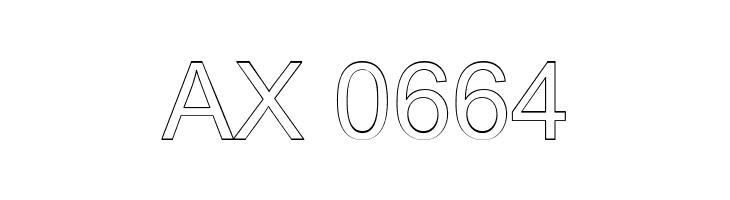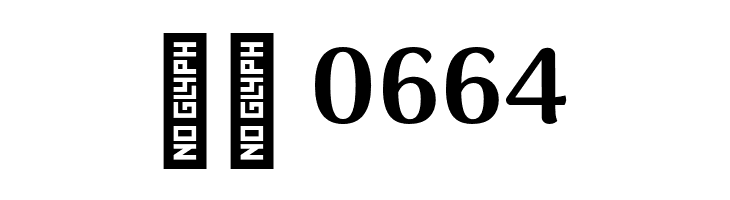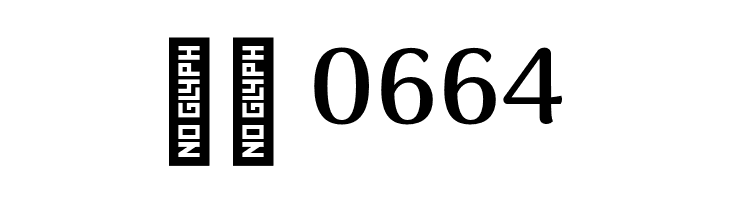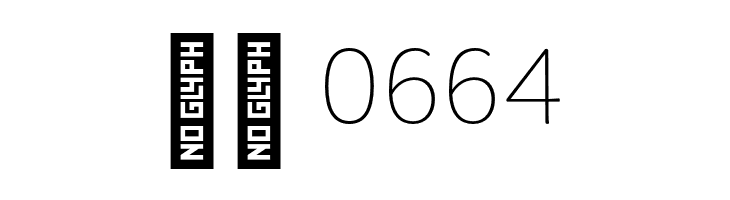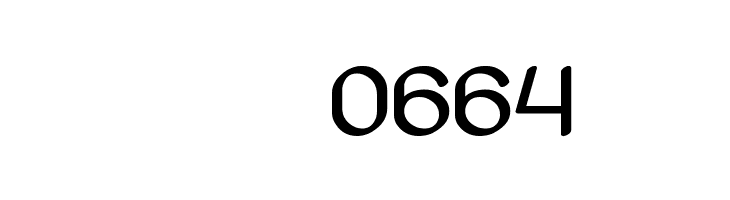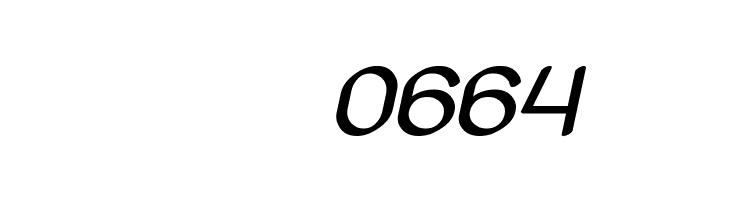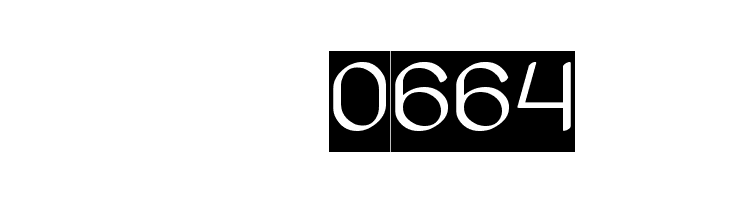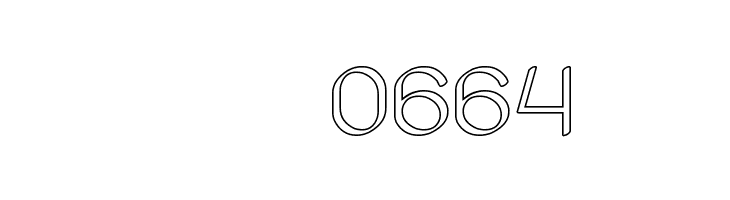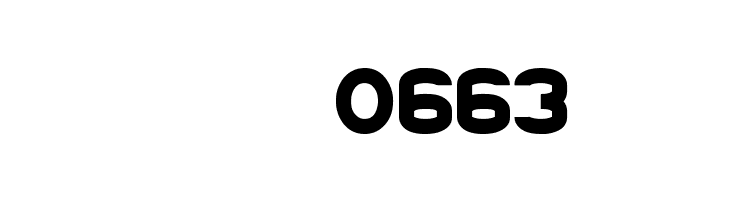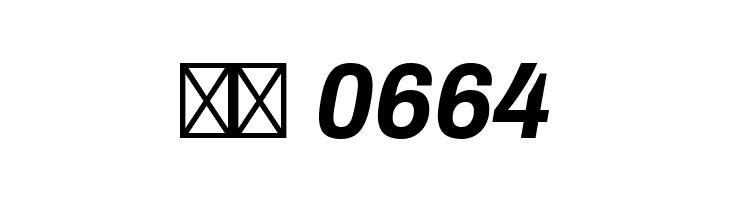
• ARCHITECTURE
A bold, geometric font with a modern, architectural style.
• Architypogra
A bold, three-dimensional font with architectural and geometric influences.
• ArchitypograPsychodeliqu
A bold, 3D font with a playful, retro comic book style.
• Archive Bold
A bold, rounded font with a playful and structured appearance.
• Archive Bold Italic
A bold, italicized font with smooth curves and a dynamic slant.
• Archive Italic
A sleek and elegant italic font with smooth curves and a modern style.
• Archive-Hollow
A modern, hollow font with clean lines and rounded edges, offering a unique and airy appearance.
• Archive-Inverse
A modern, elegant font with flowing curves and sharp edges.
• Archivo Bold
A bold, modern typeface with strong, clear characters and consistent stroke width.
• Archivo Bold Italic
A modern, bold, and italicized typeface with a clean and dynamic style.
• Archivo Italic
A modern, italicized sans-serif font with clean lines and consistent stroke width.
• Archivo Medium
A modern, clean typeface with excellent readability and balanced proportions.
• Archivo Medium Italic
A modern, italic sans-serif font with medium weight and balanced proportions.
• Archivo Regular
A clean, modern typeface with balanced spacing and consistent stroke thickness.
• Archivo SemiBold
A modern, versatile typeface with clean lines and balanced proportions.
• Archivo SemiBold Italic
A modern, semi-bold, italic sans-serif font with clean lines and low contrast.
• Archivo VF Beta Italic
A modern, italic sans-serif font with clean lines and a professional appearance.
• Archivo VF Beta Regular
A modern, geometric sans-serif font with clean and readable letterforms.
• Aref Ruqaa Bold
A bold, dynamic serif font with a slight slant and strong presence.
• Aref Ruqaa Regular
An elegant serif font with a blend of traditional and modern elements.
• arepas y queso
• ArhaicRegular